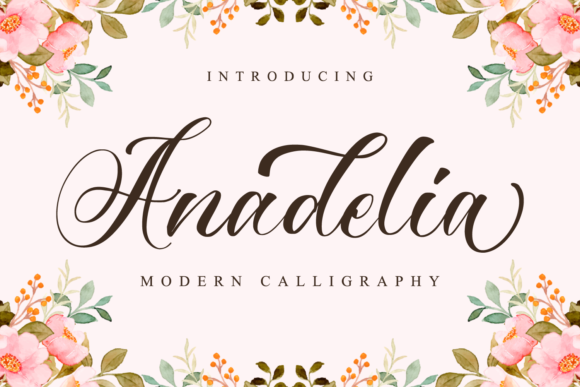
The Perfect Blend of Elegance and Whimsy: Unveiling Anadelia Font
There’s something magical about creating a logo or branding that perfectly captures the essence of a brand’s personality. You spend hours brainstorming, sketching, and refining your design, only to find the perfect combination of style and substance. That’s exactly what happens when you work with the enchanting Anadelia Font.
As a beautiful and timeless handwritten font, Anadelia Font is the perfect choice for designers looking to create eye-catching logos, branding, and quotes that leave a lasting impression. With its elegant script and versatility, this font is a valuable addition to any designer’s toolkit. Plus, its PUA encoding ensures that all glyphs and swashes are easily accessible, making it a breeze to customize your designs to perfection.
Anadelia Font Key Features
- Unique Characteristics: This script font features elegant, flowing connections between letters, making it ideal for use in titles, headings, and other display typography.
Anadelia Font Review
When I first laid eyes on the Anadelia Font, I was immediately drawn to its unique blend of elegance and whimsy. The font’s intricate details and ornate flourishes ✨ add a touch of sophistication, making it perfect for high-end designs or special occasions. The font’s ability to seamlessly transition between uppercase and lowercase letters is also noteworthy, ensuring a cohesive look throughout your design.
- The Anadelia Font’s versatility is a major selling point. It’s suitable for a wide range of applications, from wedding invitations to luxury branding.
- The font’s customizability is impressive, with a range of weights and styles to choose from.
- ✨ The Anadelia Font’s intricate details add a level of sophistication and depth to any design.
However, I do have a few reservations about the Anadelia Font. The font’s complexity can be overwhelming for some users, particularly those who are new to font design. Additionally, the font’s intricacy can make it difficult to read at smaller font sizes ⚠️.
While the Anadelia Font has its limitations, its unique blend of elegance and whimsy makes it a standout choice for designers looking to add a touch of sophistication to their designs. With a little practice and patience, users can unlock the full potential of this beautiful font.
Tips for Getting the Most Out of Anadelia Font
Experiment with different font sizes and styles to create visual interest. Pair Anadelia Font with other fonts for a unique look. Use it for headings, titles, and body text for a cohesive design.
Anadelia Font is ideal for:
– Creative projects, such as brochures, flyers, and posters
– Branding materials, like logos, business cards, and letterheads
– Digital content, including social media graphics, website headers, and blog posts
Alternatives to Anadelia Font
Great Vibes Font is a modern, elegant script font that is perfect for creating a whimsical and playful atmosphere. It is ideal for use in wedding invitations, greeting cards, and other creative projects where a touch of romance is needed.
Compared to Anadelia Font, Great Vibes Font has a more fluid and connected feel, making it suitable for longer text passages. It also has a more vintage charm, which may appeal to designers looking for a unique aesthetic.
Carolyna Pro Font is a high-end script font that exudes sophistication and elegance. It is ideal for use in luxury branding, high-end packaging, and other projects where a touch of glamour is needed.
Compared to Anadelia Font, Carolyna Pro Font has a more refined and polished feel, making it suitable for use in corporate settings and high-end branding. It also has a more dramatic flair, which may appeal to designers looking for a statement font.